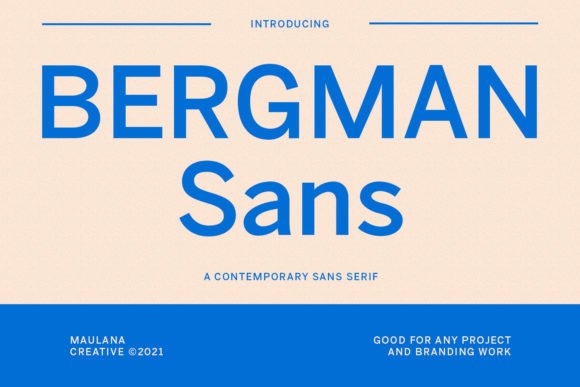
The Perfect Match for Your Next Creative Project
Have you ever been working on a project, pouring your heart and soul into it, only to feel like something is missing? Maybe it’s a font that just doesn’t quite fit the vibe you’re going for. This is where the Bergman Font comes in – a clean, contemporary sans serif font that’s perfect for a wide range of projects.
The Bergman Font is designed to be versatile and easy to use, making it a valuable tool for designers. Its clean lines and simple design make it easy to read and understand, while its modern feel makes it perfect for everything from logos to web design.
Whether you’re working on a new branding project or just need a font to elevate your latest design, the Bergman Font is definitely worth considering.
Bergman Font Key Features
- Unique Characteristics: Bergman Font features a unique blend of modern and vintage elements, with a distinctive italic and oblique style that sets it apart from other fonts.
- Scalability: Bergman Font is highly scalable, making it suitable for use in a variety of applications, from small text to large headlines, without losing its clarity and legibility.
Bergman Font Review
Overall, I have mixed feelings about the Bergman font. It’s a great choice for specific projects, but it has some limitations that may not make it suitable for all designs. ✨
- Unique and modern design that’s perfect for contemporary projects
- Sharp and clean lines that make it easy to read, even at smaller sizes
- Supports a wide range of languages, making it a versatile option for global audiences
- ⚠️ Limited character set, which may cause issues for projects that require specific characters or symbols
- ⚠️ Not ideal for long blocks of text, as it can be tiring to read due to its modern and condensed style
- ⚠️ May not be suitable for projects that require a more formal or traditional tone
The Bergman font is a solid choice for designers who need a modern and unique font for their projects. However, it’s essential to consider its limitations and ensure it’s the right fit for your specific needs. With some careful planning and selection, Bergman can be a great addition to your design toolkit.
The Bergman font is a great choice for creating elegant and sophisticated designs. It’s commonly used for:
2. Luxury branding and packaging.
3. High-end marketing materials.
Remember to use the Bergman font consistently throughout your design to create a cohesive look.